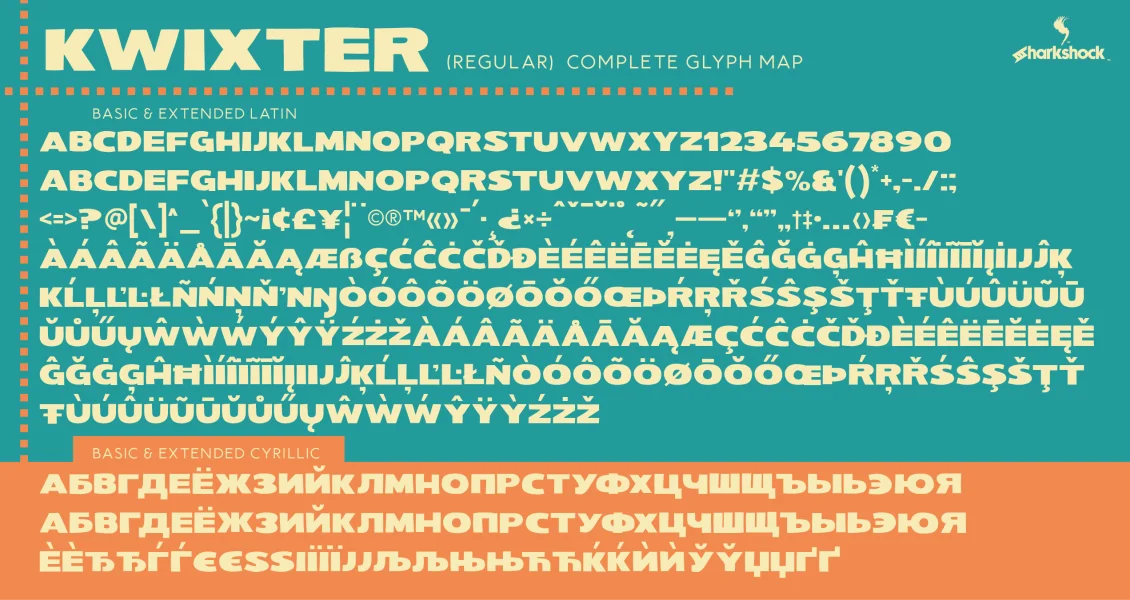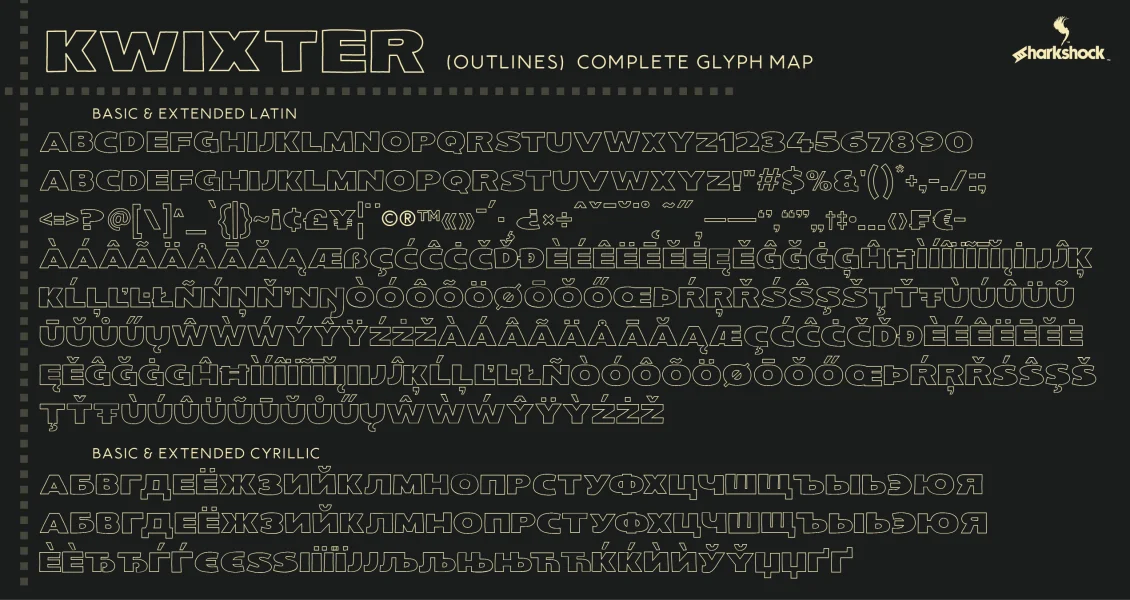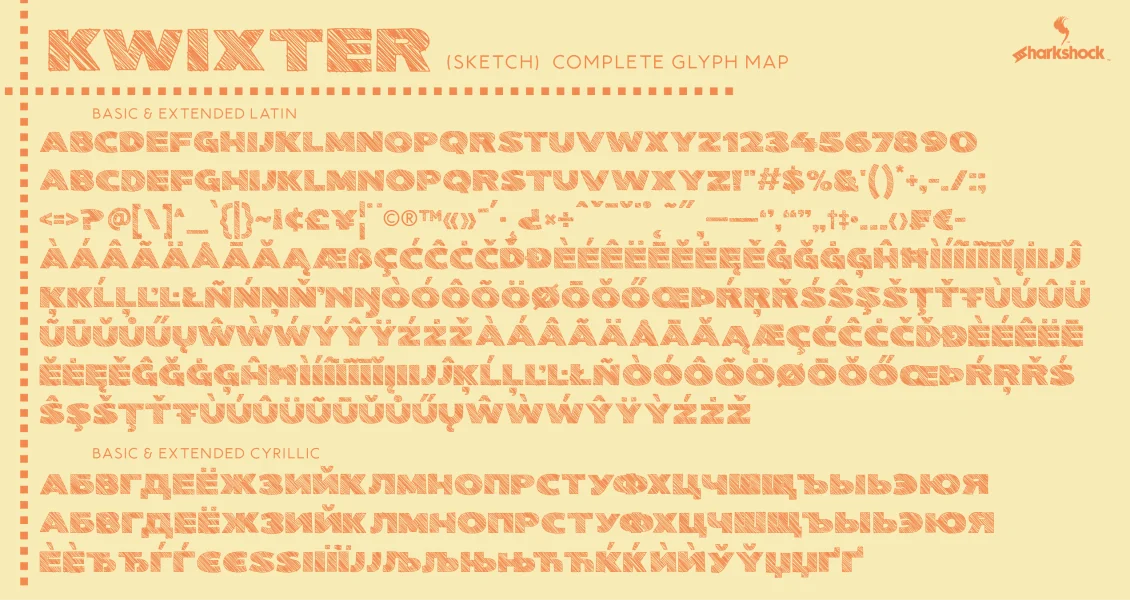
Kwixter is a rugged, all caps, display sans that doesn’t take itself too seriously! This broad, yet childlike font was designed to take up horizontal space and inject a little playfulness into your project. The binary nature of this family means it will find many helpful uses in your type collection over the years. It’s structured enough for commanding web headers yet cartoony enough to end up on a kid’s book. Use Kwixter for a company logo or the Sketch version for toy packaging/merchandising.
Basic Latin, Extended Latin, punctuation, Cyrillic, Serbian support, and kerning are included in the full version. Please check the glyph map for all supported characters. The demo contains basic Latin, Cyrillic, and limited punctuation.